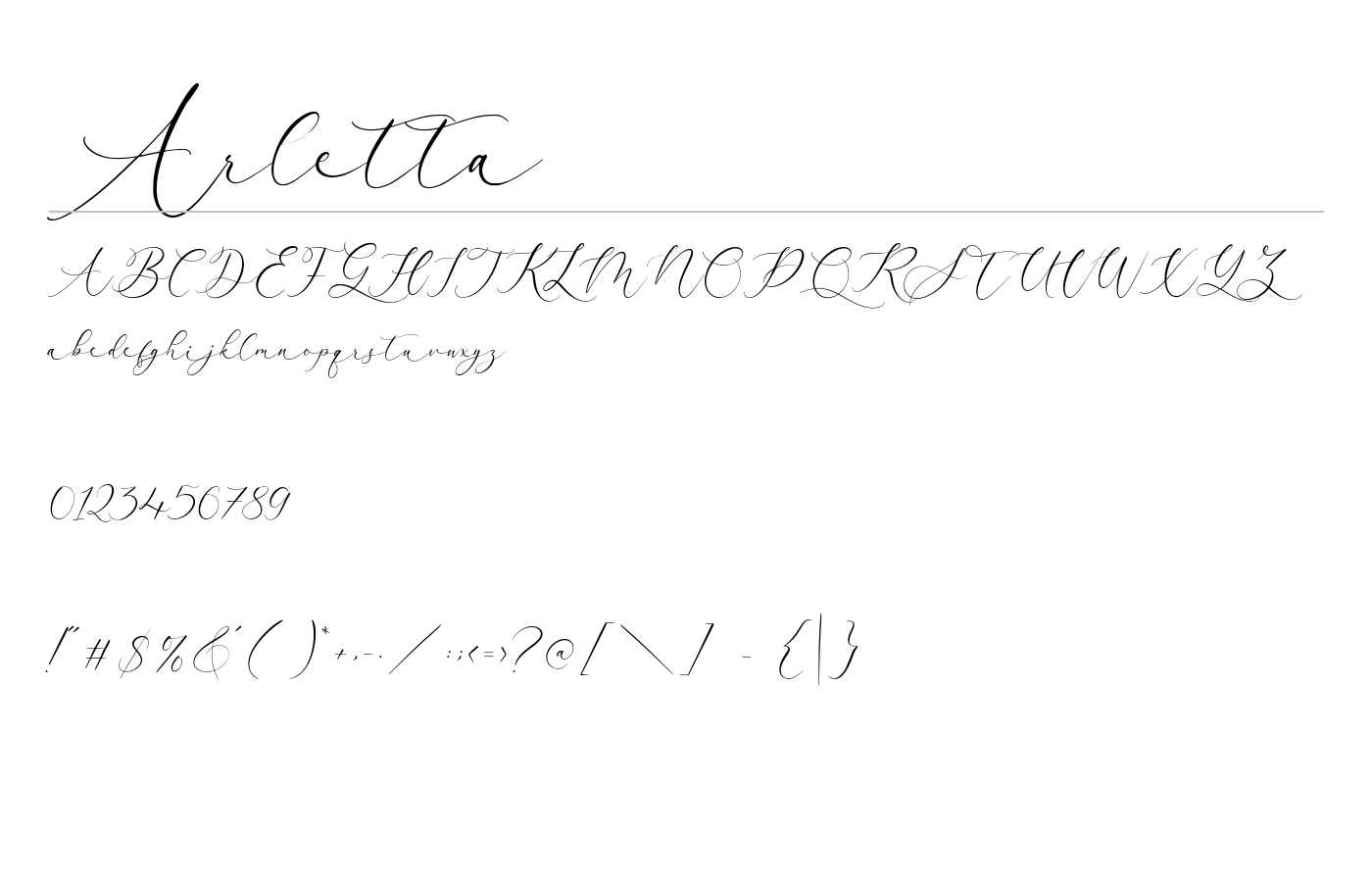
Arletta is an elegant, delicate script font characterized by its fine, flowing lines and intricate swirls, giving it a graceful, handwritten feel. Its light weight and high contrast strokes make it perfect for sophisticated branding, wedding invitations, and luxury editorial uses where a touch of refinement and femininity is desired. This font excels in creating a romantic and classy atmosphere, best suited for large display settings rather than body text.
Arletta Font
About Arletta Font